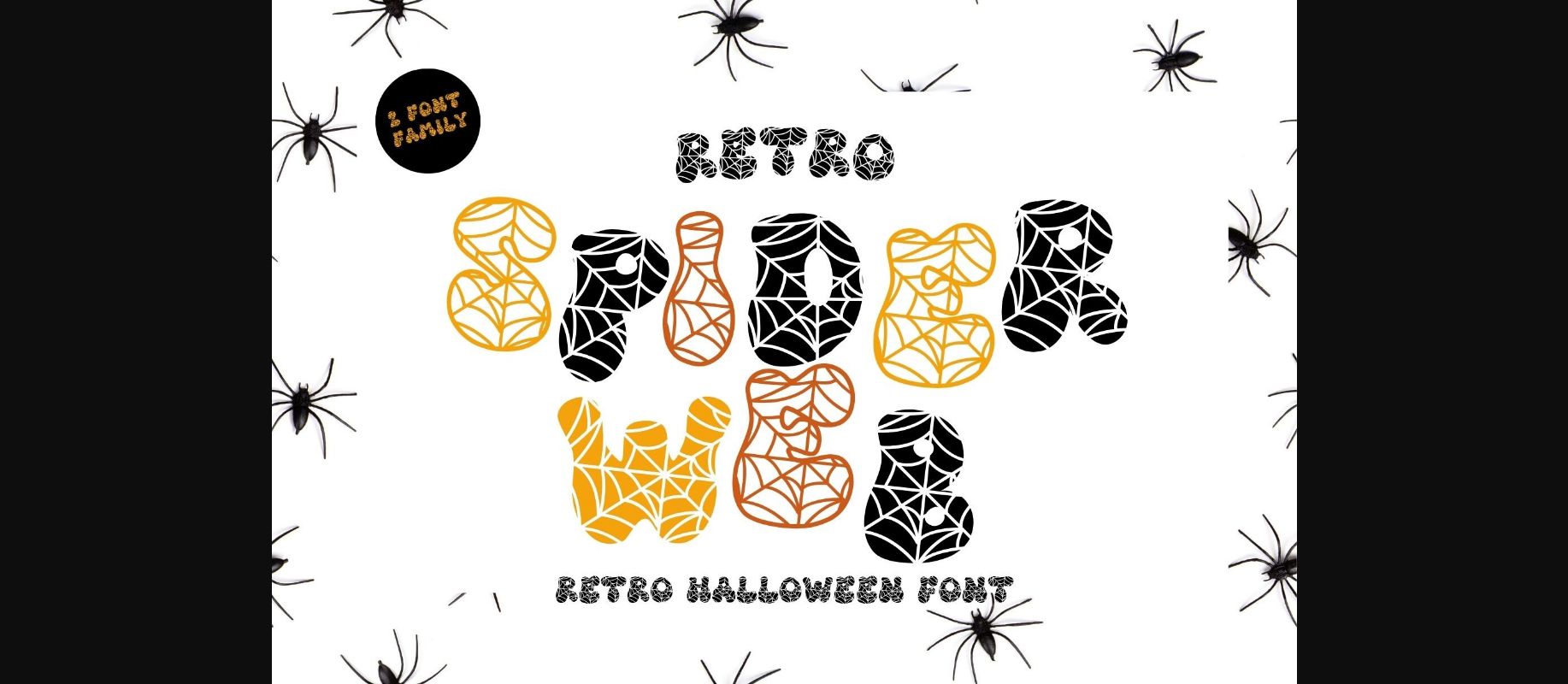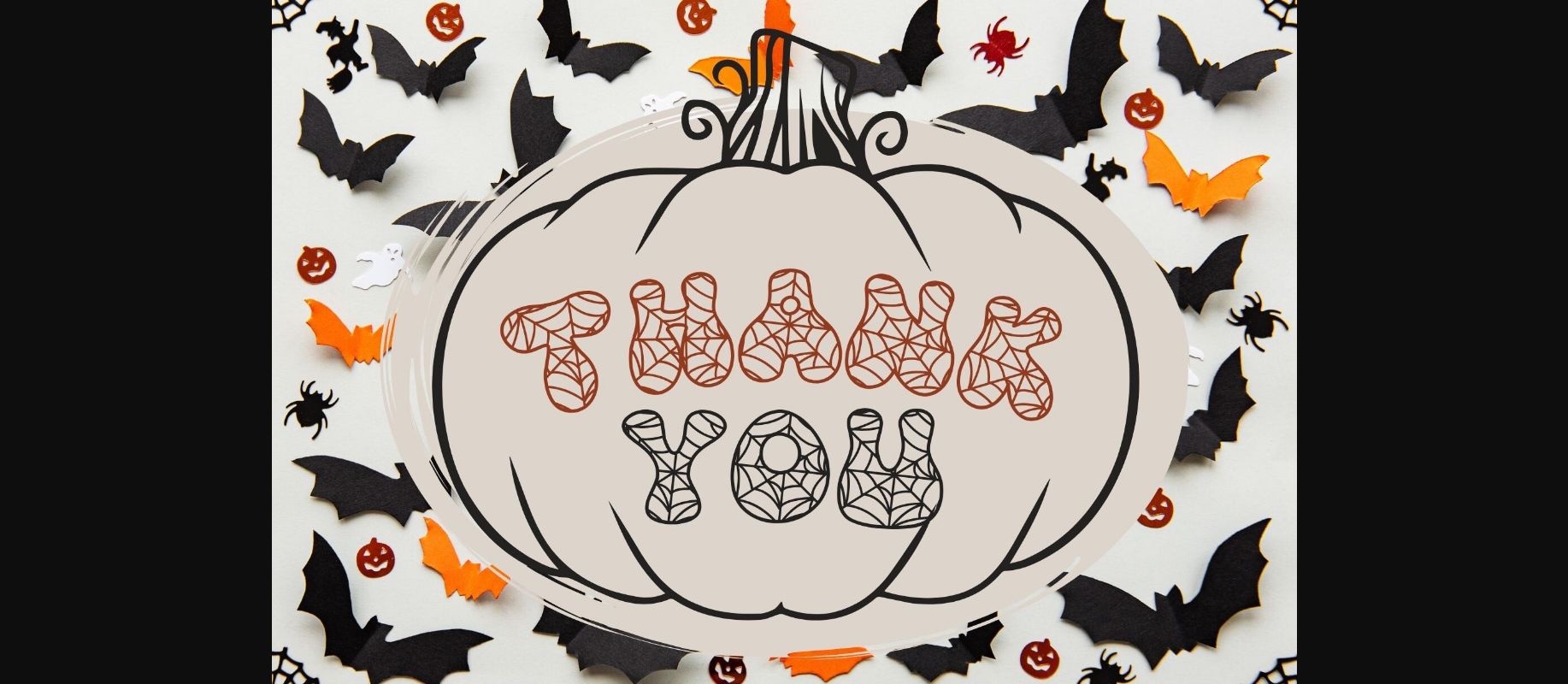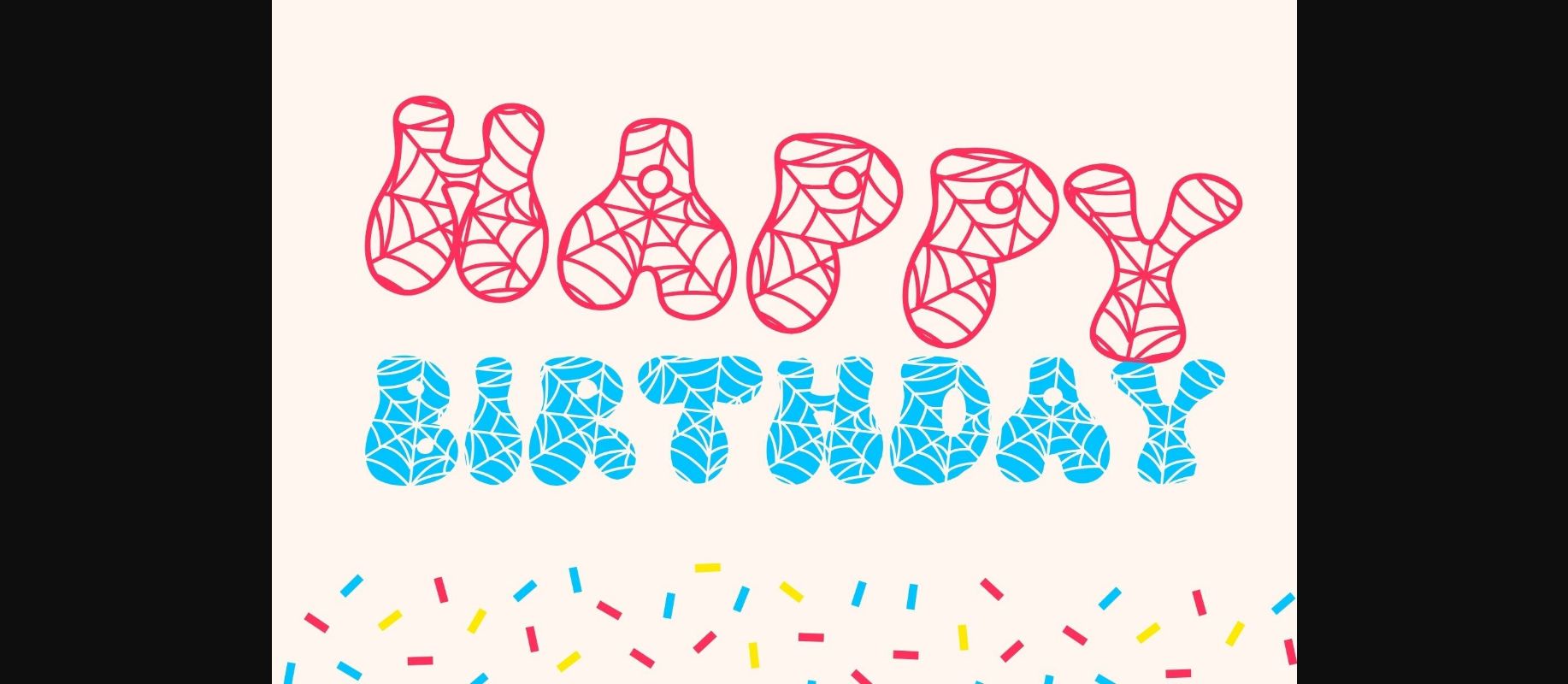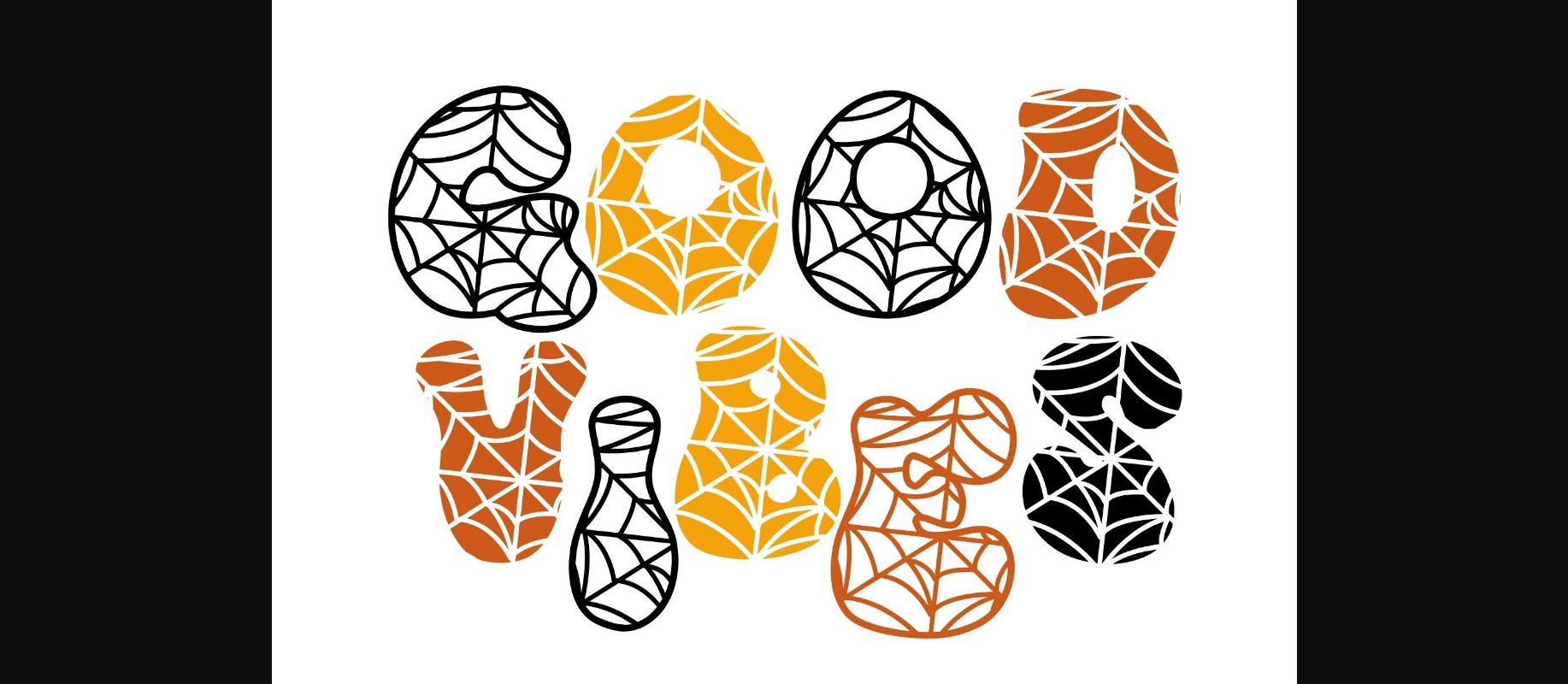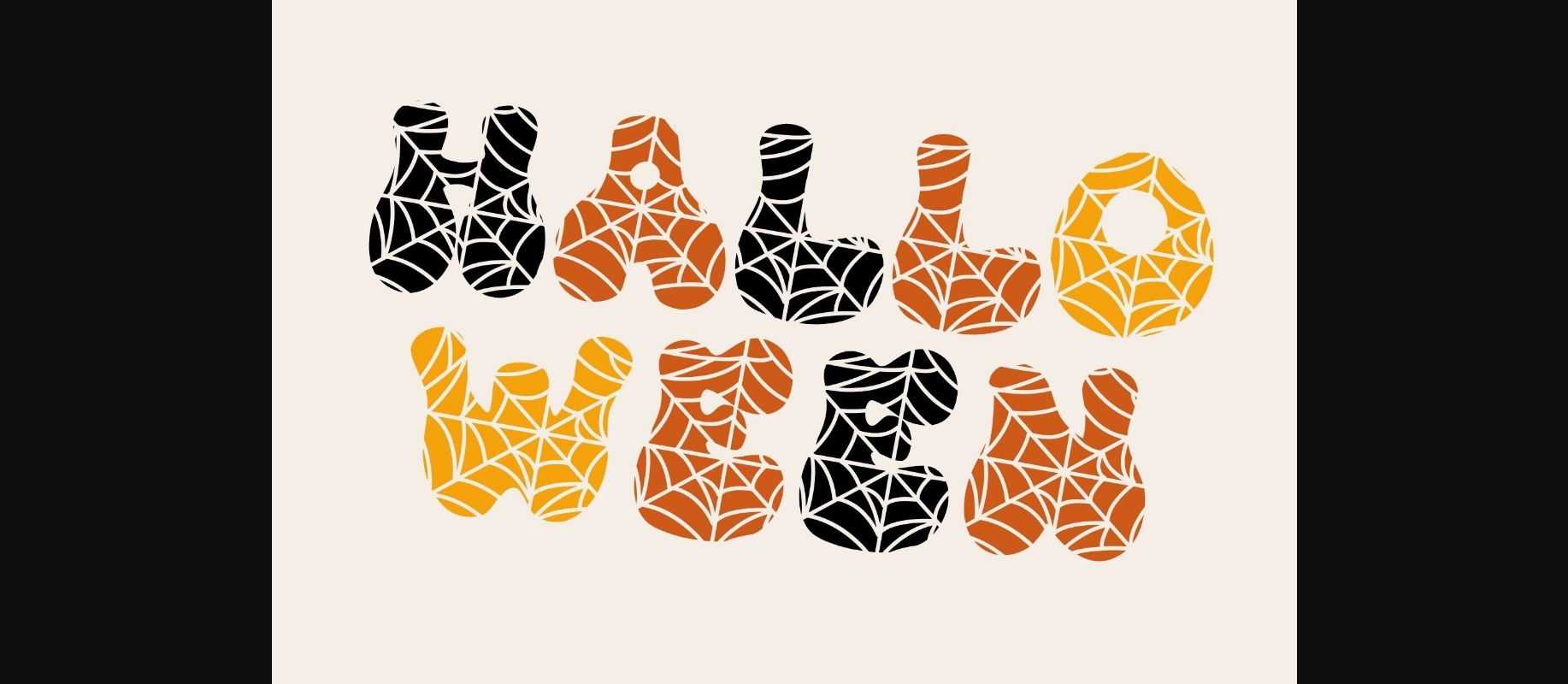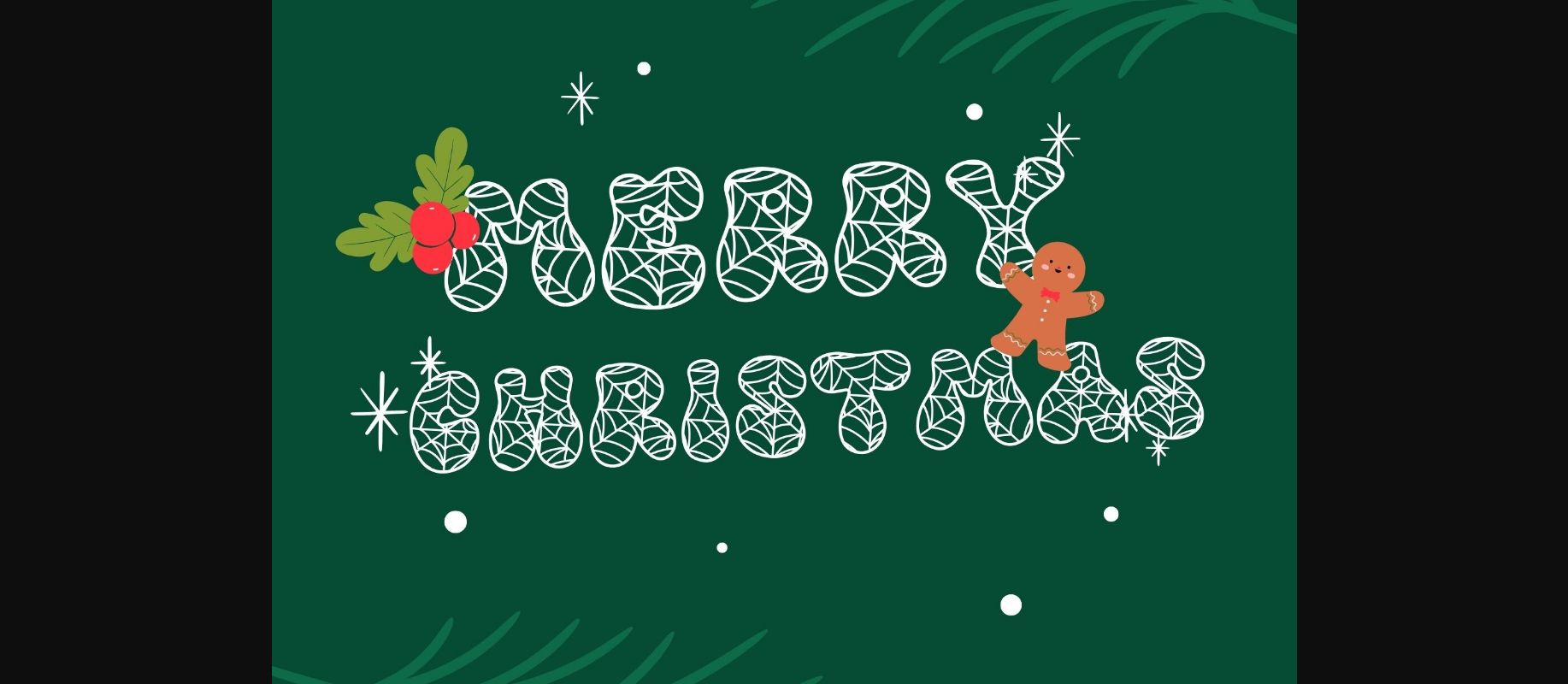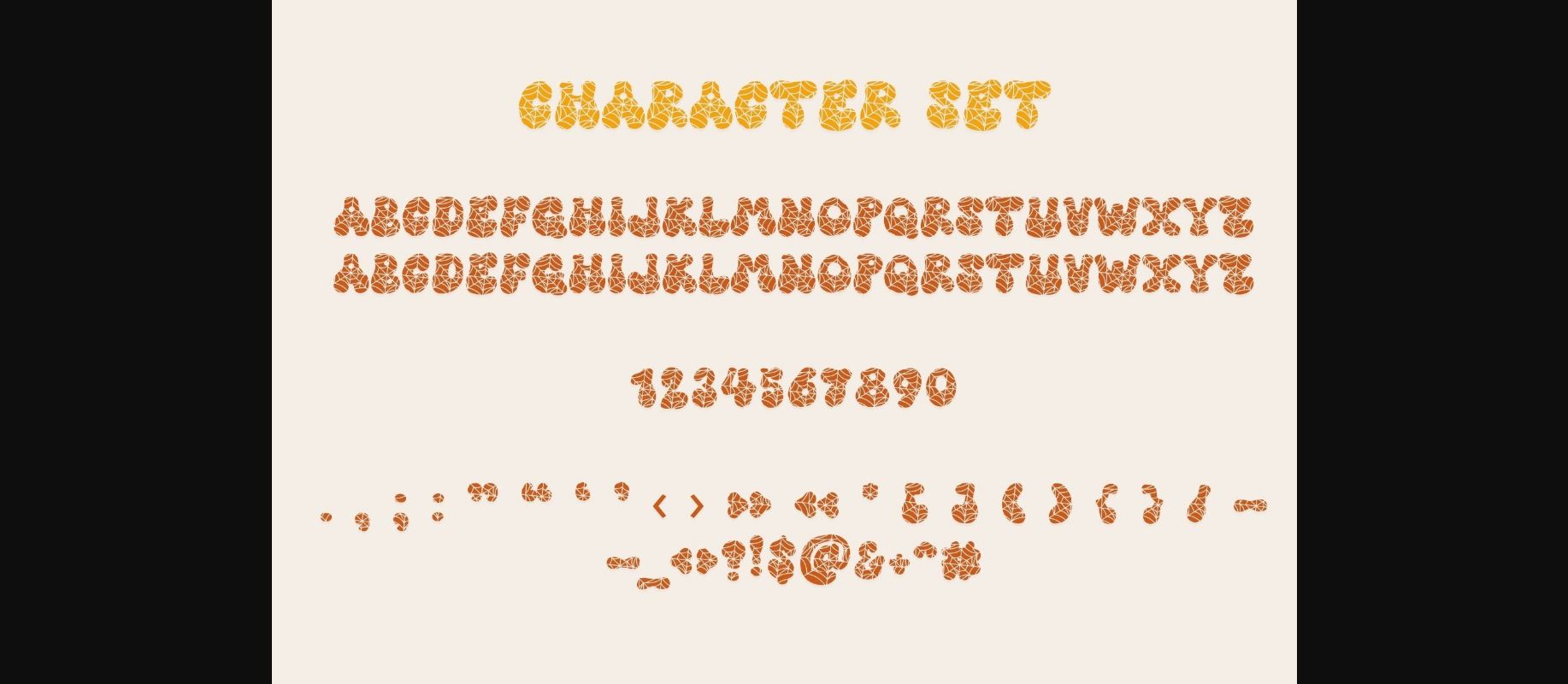
Retro Spider Web Font
About Retro Spider Web Font
Retro Spider Web is a scary halloween and fun decorative display font. It embodies playfulness and authenticity and is the perfect choice for all your favorite Halloween projects, or even for blog posts, logos, branding, ads, invitations, greeting cards, planners, photo albums, decorations, and much more. Add it to any of your designs, and enjoy the results!